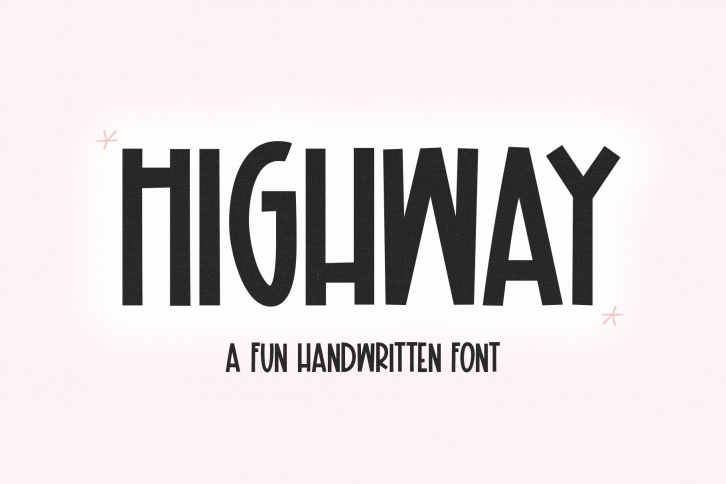
Highway is a gorgeous font that was realeased on October 23, 2022. The font can be used in many style contexts and design environments. Perfect for invitations, magazines, websites, logos, and more! It was designed by KA Designs and the file size is 20.18 MB. Thanks for checking out this font!